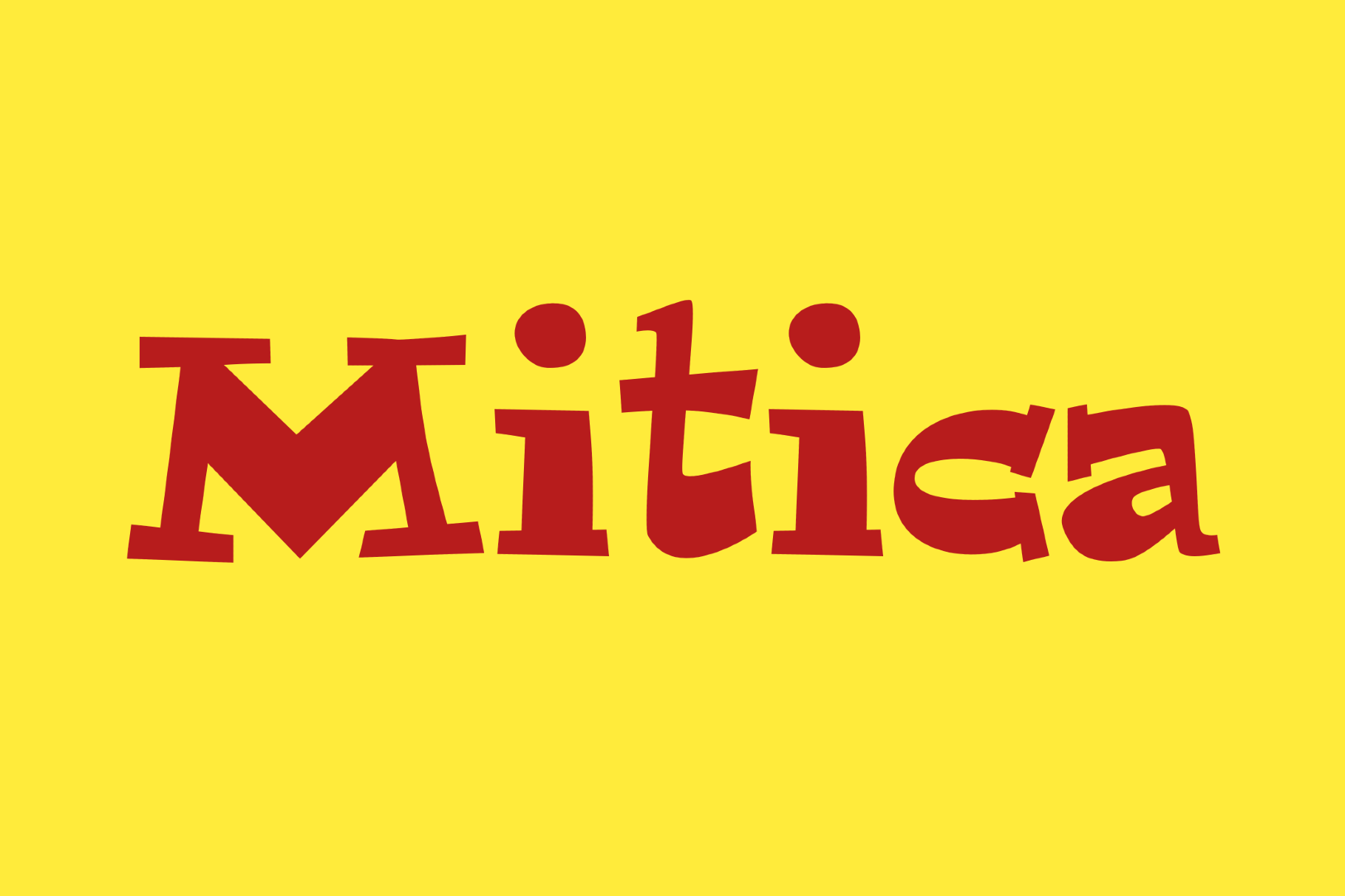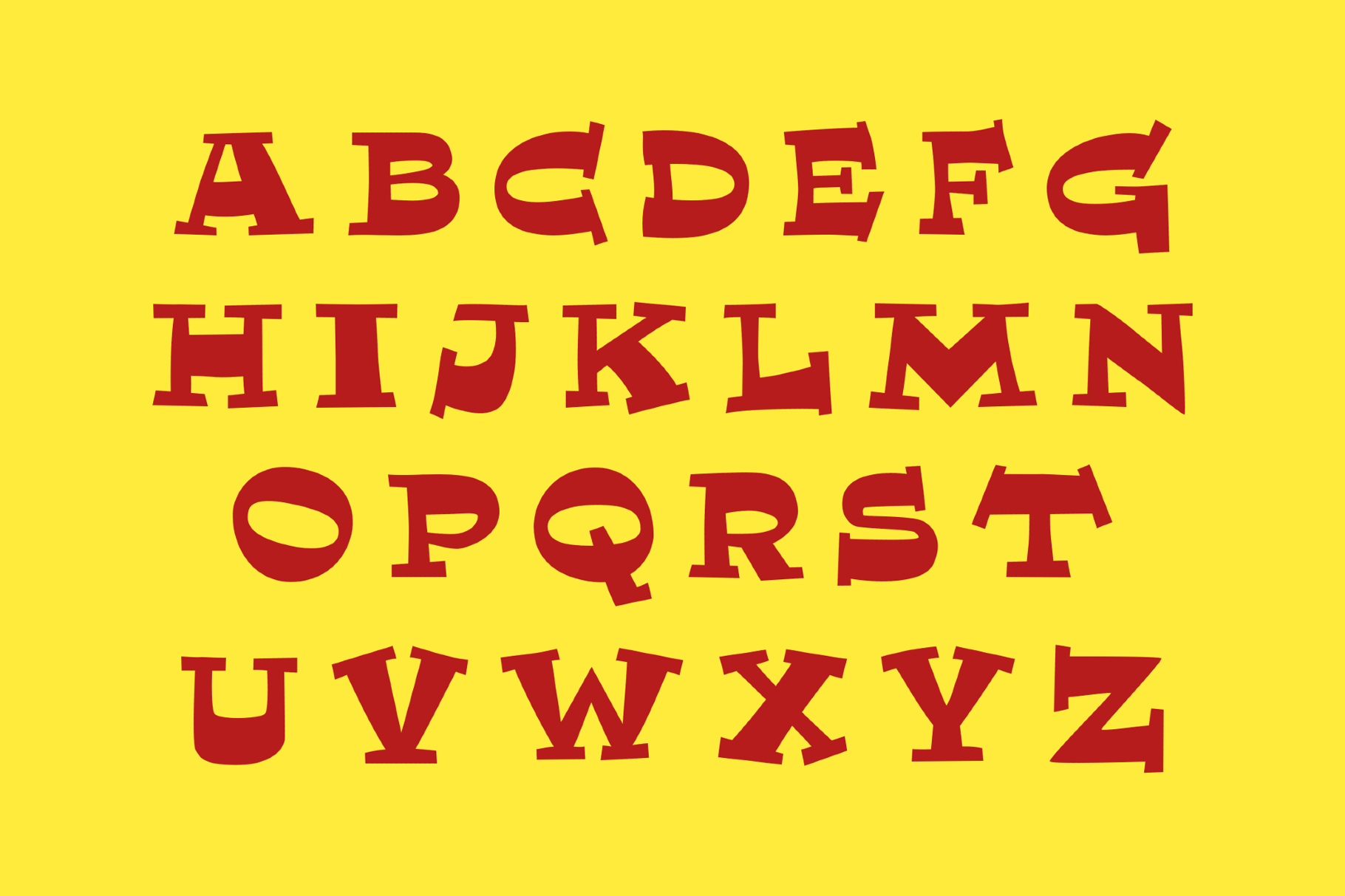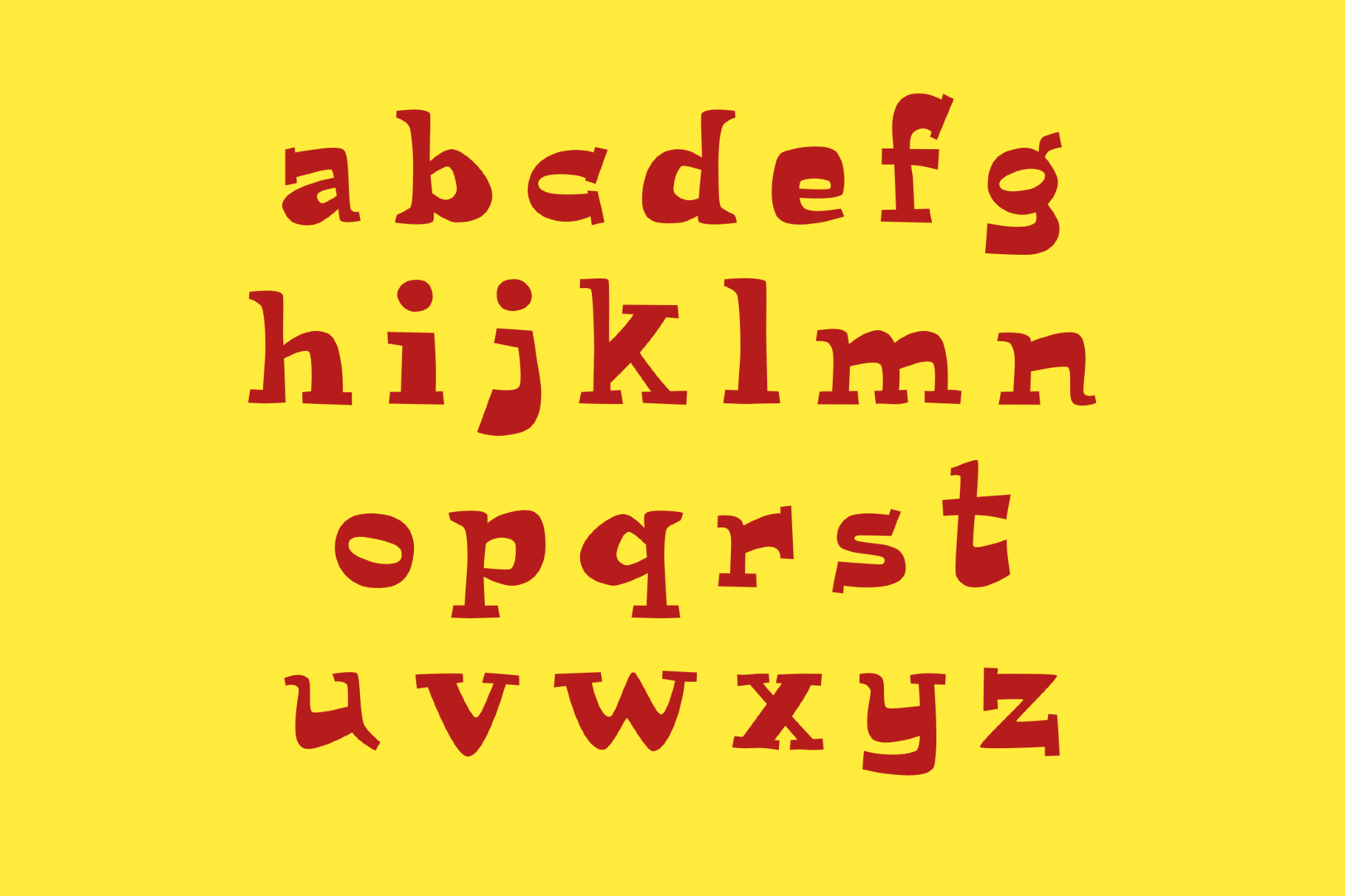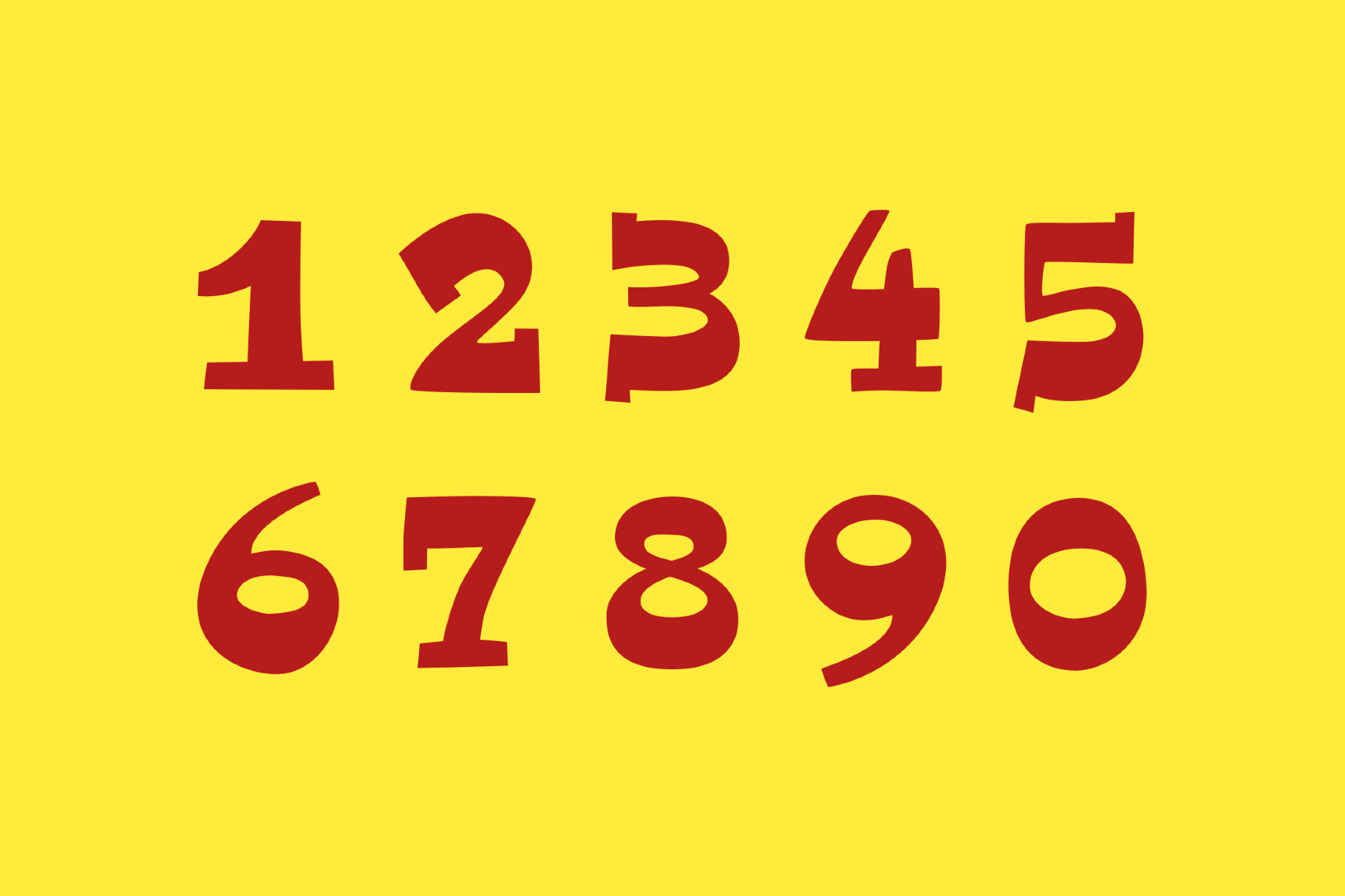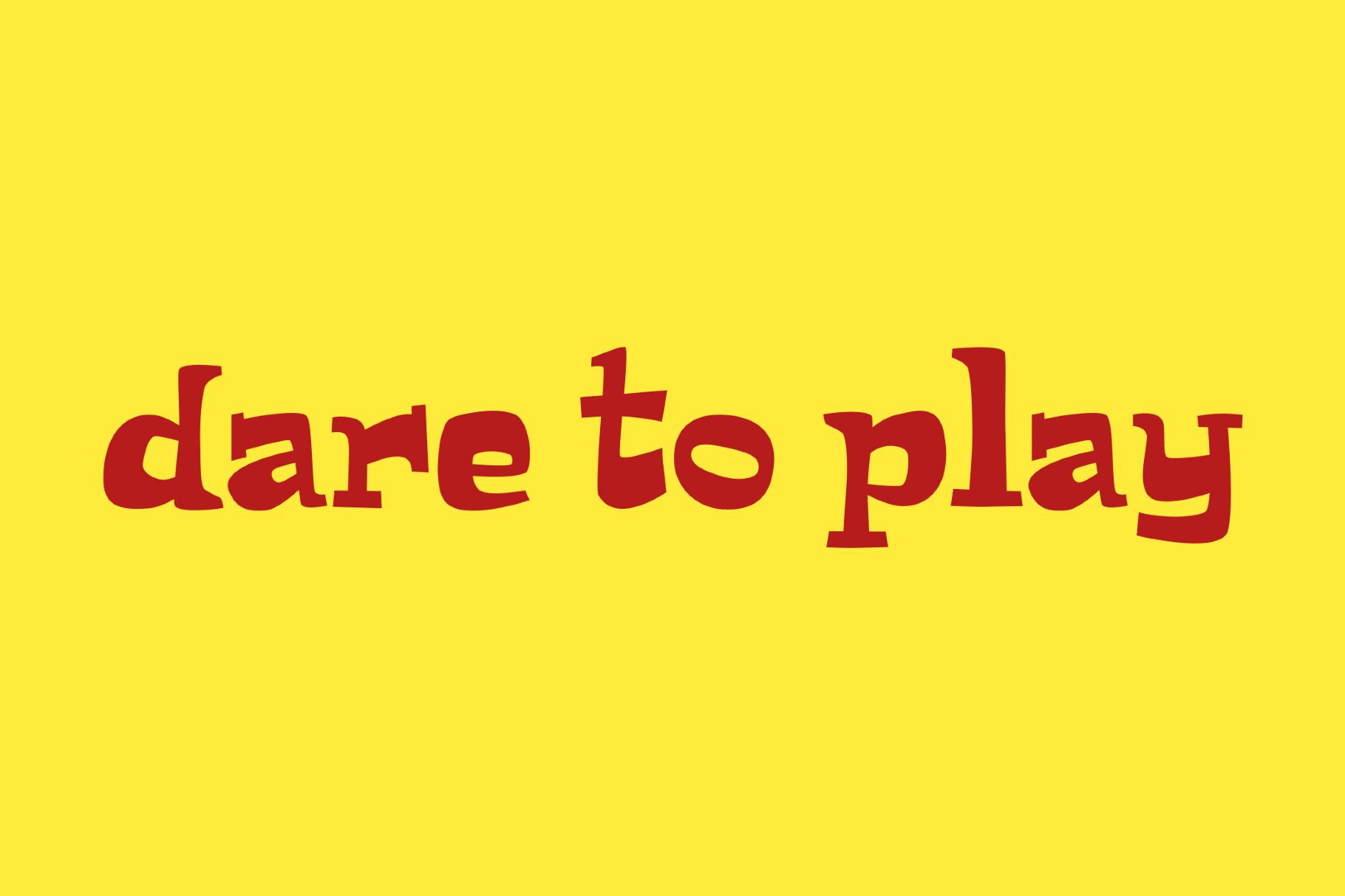
Mitica - Retro Cartoon Font
MiTica
Mitica is a stout display serif with flared strokes and an off-balance stance. It brings to mind circus placards, early paperback titling, and vernacular sign painting with a slightly rustic twist. The font is good for poster headlines, logo work, packaging, book covers, café graphics, merch and editorial titles.